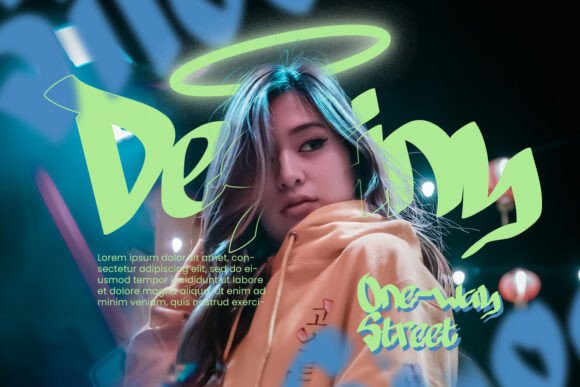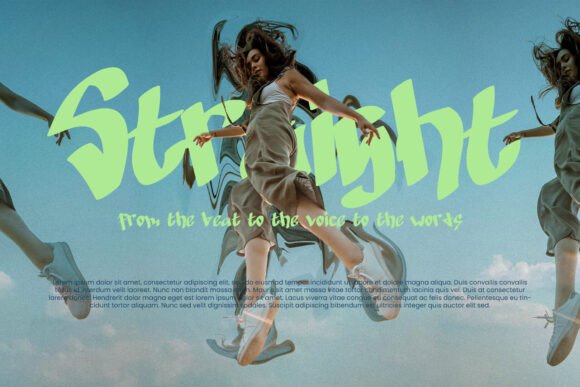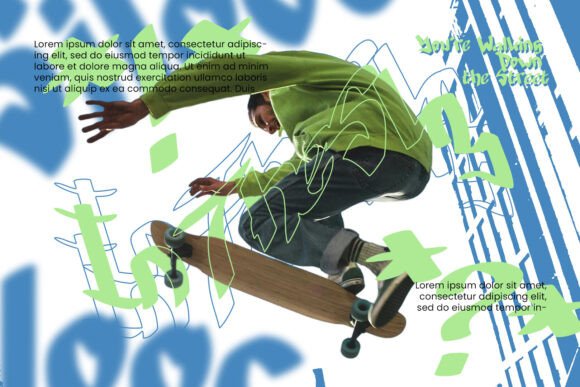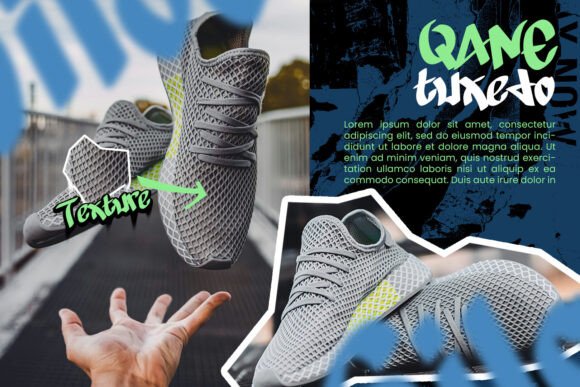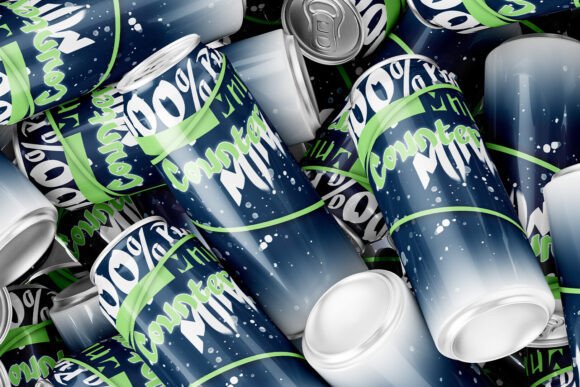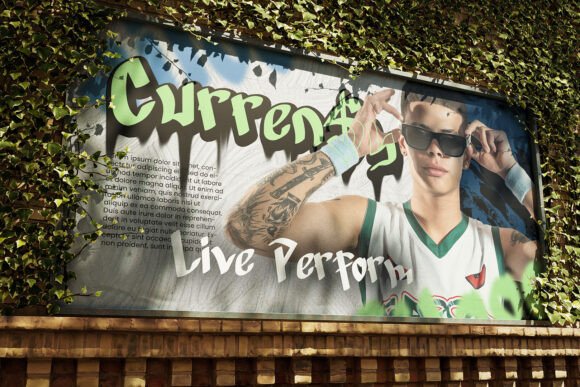
Introduction to Silooc Font
As a designer, there’s nothing quite like the thrill of bringing a creative project to life. The rush of ideas, the experimentation with colors and typography, and the satisfaction of seeing it all come together – it’s a feeling that’s hard to beat. And, as any designer will tell you, the right font can make all the difference. That’s why we’re excited to introduce the Silooc Font, a high-quality script graffiti font that’s perfect for adding a touch of creativity to your next project.
With its expressive, wild, and unique concept, the Silooc Font is a versatile design resource that can be used for a wide range of purposes, from music album artwork to logo design. And, with its transparent background and simple installation process, it’s a breeze to work with, whether you’re using Adobe Illustrator, Adobe Photoshop, or Microsoft Word.
Key Features of Silooc Font
- High-quality, modern design suitable for creative projects
- Available in a transparent background, making it easy to customize
- Unique, elegant script style perfect for adding a touch of sophistication to any creative project
Honest Review: Silooc Font
I recently had the chance to work with the Silooc Font and I must say, it’s a solid addition to any designer’s toolkit. This high quality font is perfect for a wide range of creative projects, from logos to brochures.
- ✨ High-quality design that’s perfect for logos, brochures, and more
- ✨ Easy to use and pairs well with transparent backgrounds
However, I do have a few minor complaints. The font could benefit from a few more weight options (⚠️), and the character set could be more comprehensive.
The Silooc Font is ideal for creative projects such as logos, branding materials, and presentations. Its high-quality design makes it perfect for use in a variety of contexts, from business to personal projects.
To get the most out of the Silooc Font, experiment with different font sizes, colors, and styles to find the perfect combination for your design. You can also use the font with other design elements to create a cohesive and visually appealing design.